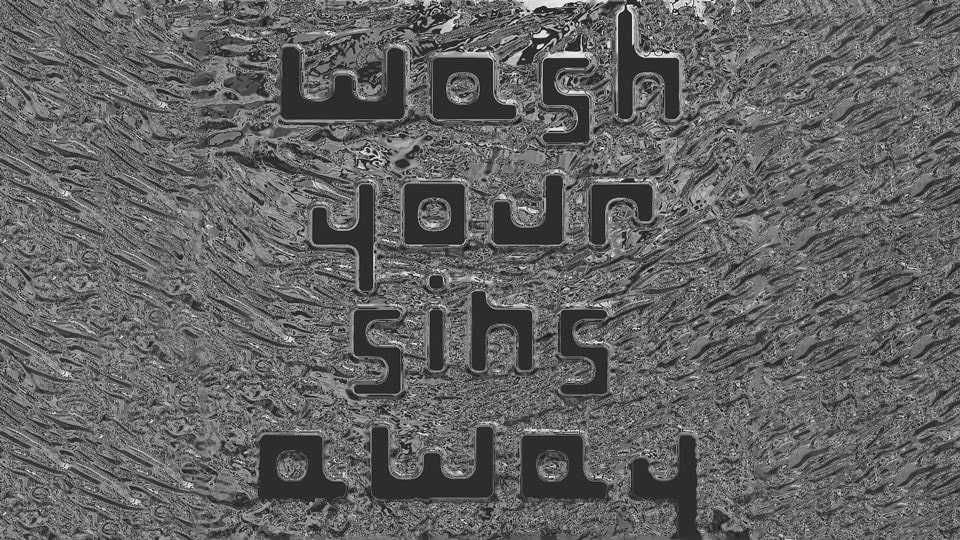
Download Seaweed Sans font, a sleek and modern monospaced geometric typeface that combines rectangular shapes with rounded corners for a contemporary aesthetic.
Designer: Mother Type